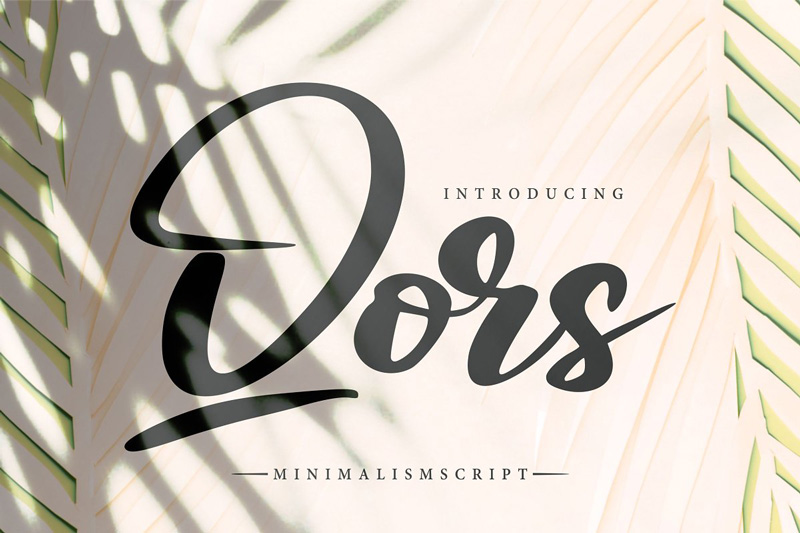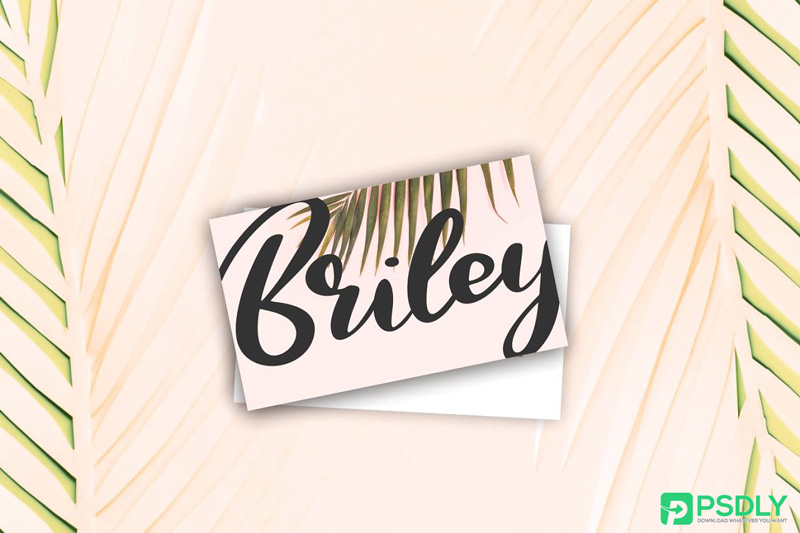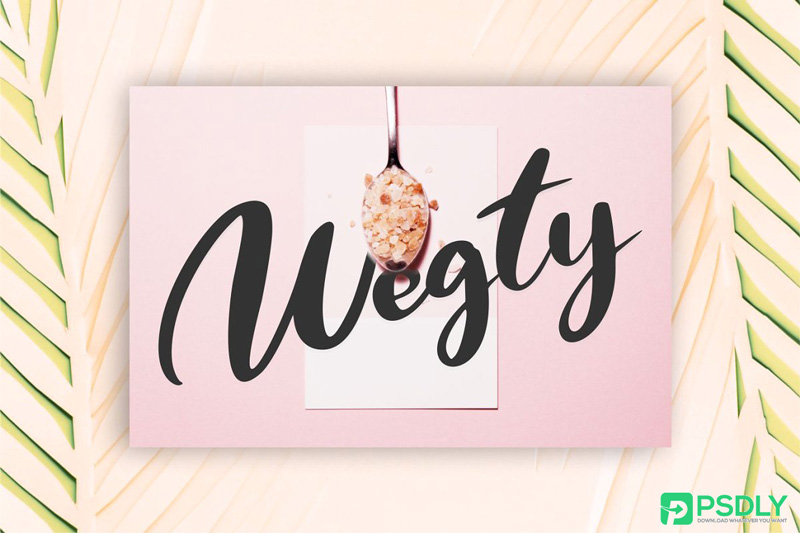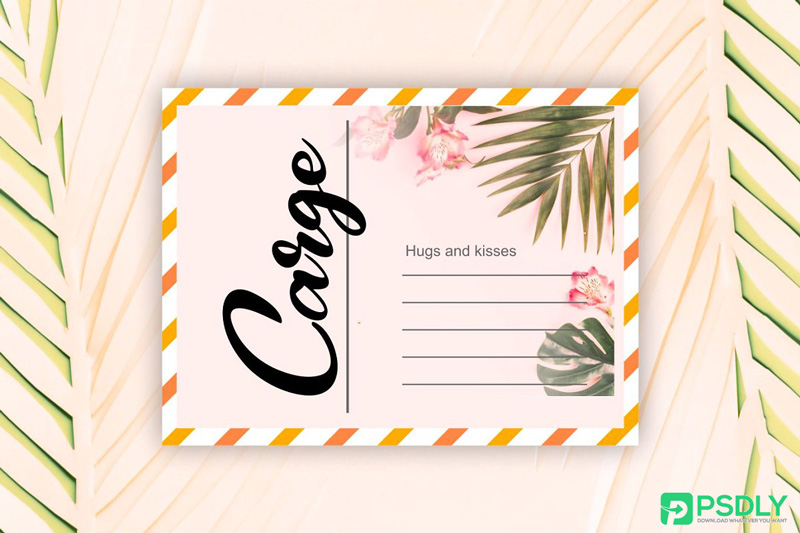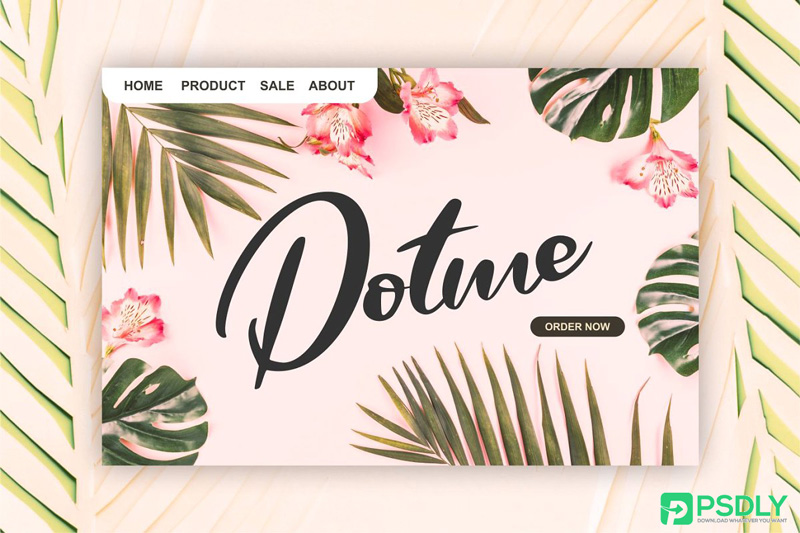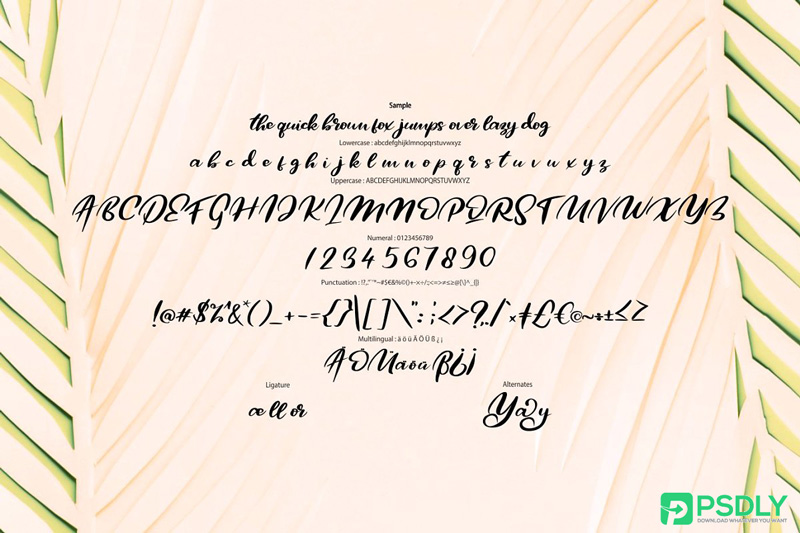
Qors Minimalism Script Font
Qors is an awesome calligraphy style font. It is so lovely font. you can use it for the feminine logo, wedding card, luxury branding, poster, visiting card, and much more purpose.
• Ligature